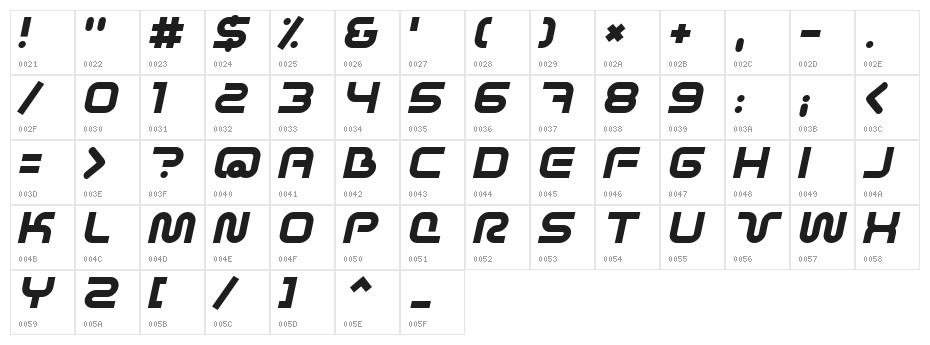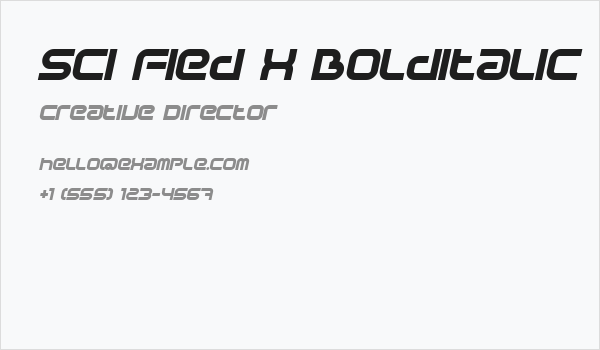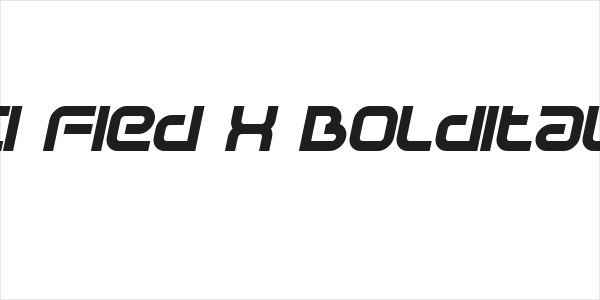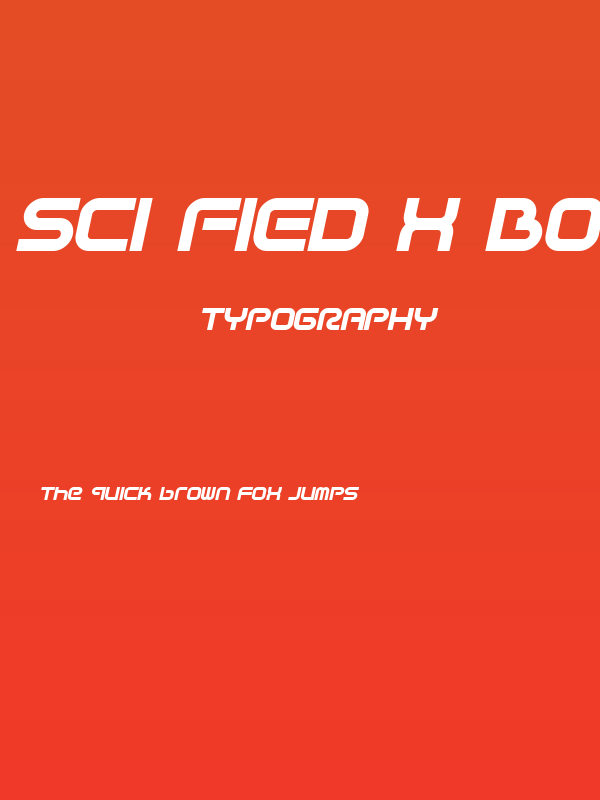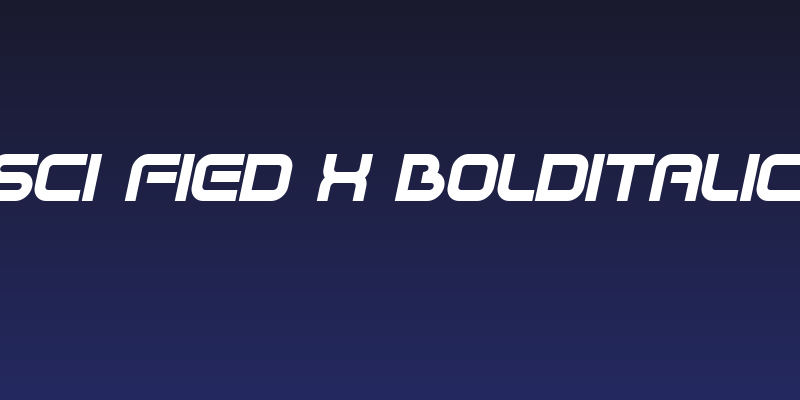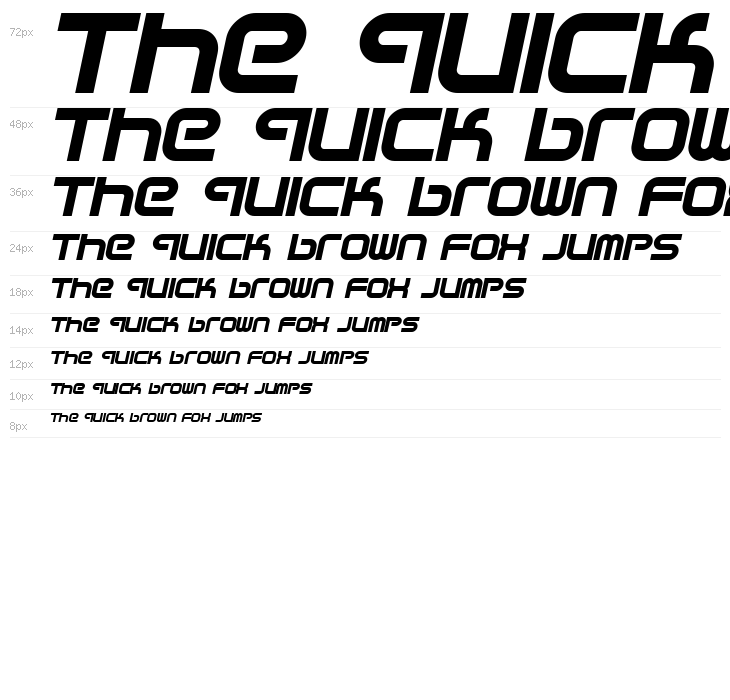
Sci Fied X BoldItalic Font
Sci Fied X BoldItalic Description
This font features a futuristic and bold design with a distinct italic slant. The characters are crafted with a sleek, modern aesthetic, emphasizing sharp angles and smooth curves. The uppercase and lowercase letters maintain a consistent style, creating a cohesive look. The numerals and special characters are designed to match the overall theme, making it suitable for projects that require a modern and dynamic appearance. The font's bold weight and italic style enhance its visual impact, making it ideal for attention-grabbing designs.